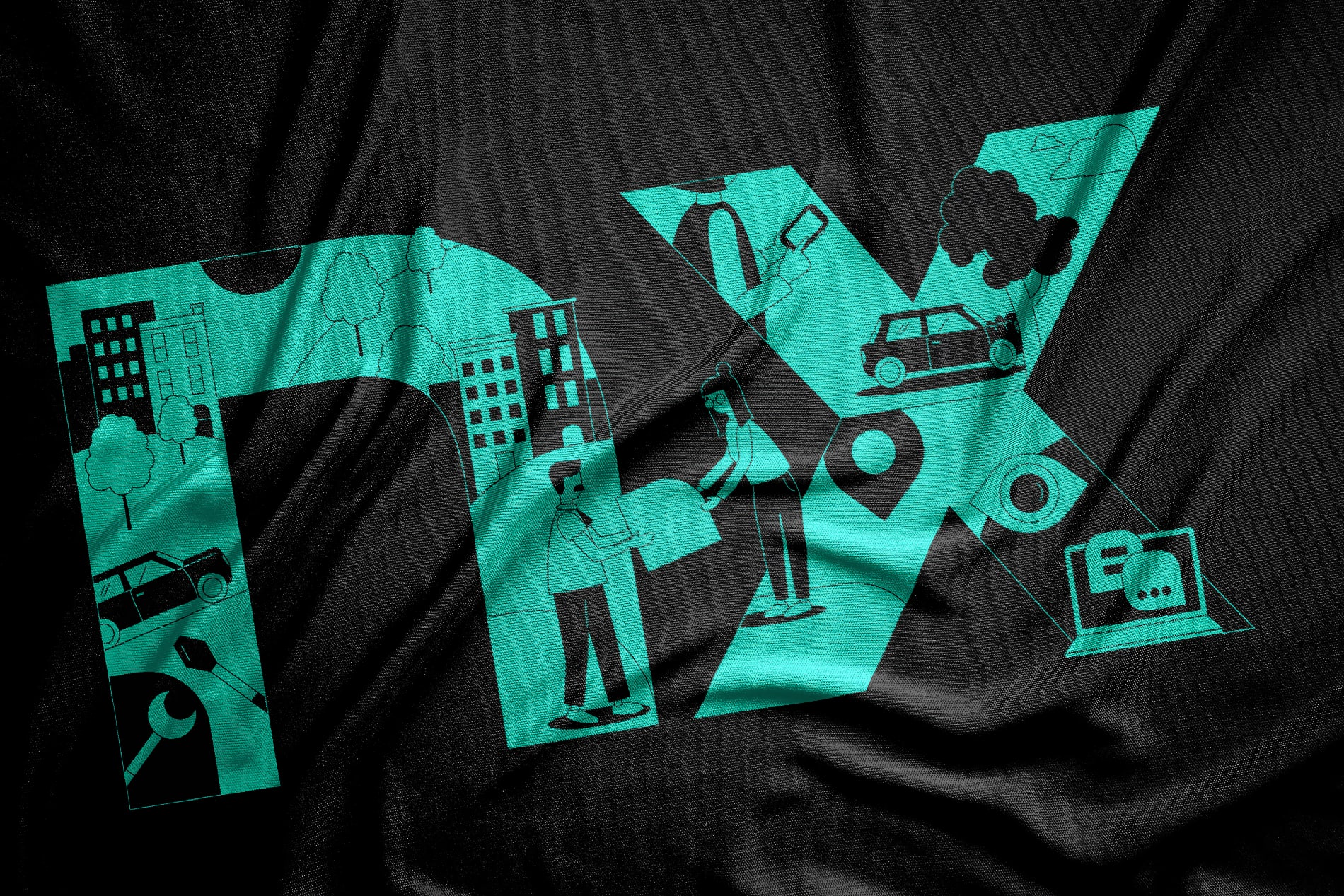
Nexible is an insure-tech company from Germany that focuses on smart, digital interactions with customers through user-friendly interfaces that make the insurance process as easy as possible. “No boring paperwork, and plenty more time to enjoy the good things in life.” Morphoria and Design studio B.O.B., put their heads together and came up with a flexible identity that is fun, bold and highly recognizable in its simplicity through distinctive shapes and vibrant colors.
Brand elements are application dependent and can either be minimal, to make complicated topics more comprehensive, or they can be decorative and fun to interact with for the target audience on social media. The custom typeface "Nextra" is the perfect addition to this multimedia brand identity, bringing all the company's characteristics to a San Serif typeface with unique details, based on the logo architecture and graphic concept.